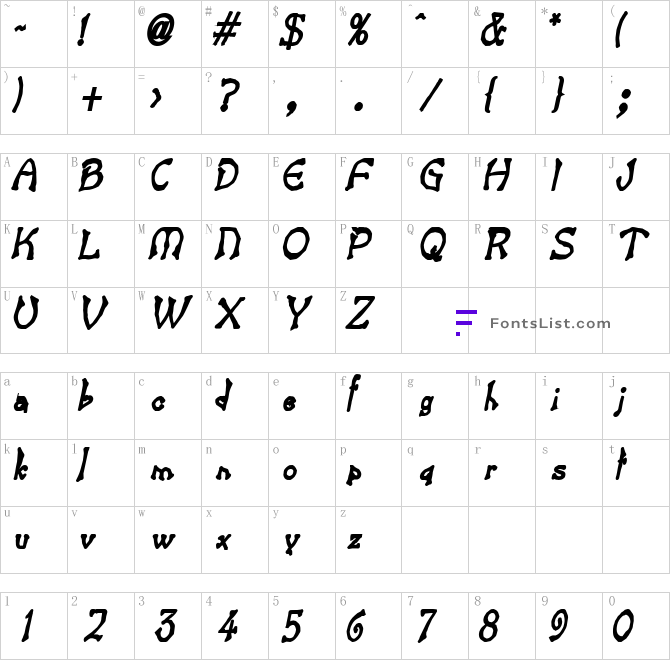
Bart-Thin-Heavy-BoldItalic.ttf is a very beautiful artistic font, Bart-Thin-Heavy-BoldItalic.ttf is widely used in the design and printing of various books and pictures,Bart-Thin-Heavy-BoldItalic.ttf has a strong visual impact,Bart-Thin-Heavy-BoldItalic.ttf is a commonly used font in newspapers, magazines and books, and is used in posters, e-commerce Poster design, store design, logo design, font design and other fields.Bart-Thin-Heavy-BoldItalic.